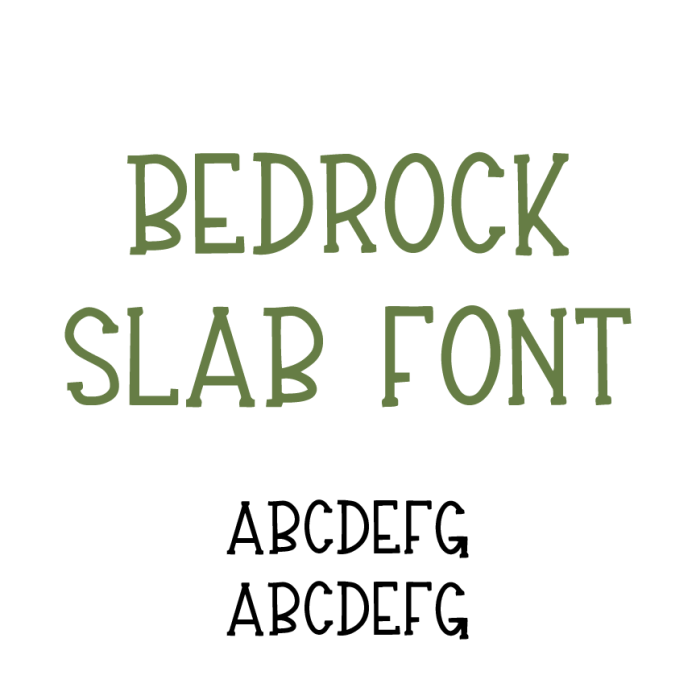
Introducing Bedrock Slab Serif Font – a bold, rugged, and modern slab serif perfect for all your Silhouette crafting projects! With its strong, blocky letterforms and sturdy serifs, this font adds a touch of industrial charm to any design. Ideal for vinyl decals, farmhouse signs, logos, T-shirts, invitations, and more, Bedrock Slab ensures smooth, precise cuts on your Silhouette machine. Whether you're crafting for home décor, branding, or personalized gifts, this versatile and eye-catching font delivers a professional look every time. Download Bedrock Slab Serif today and give your creations a bold, handcrafted touch!